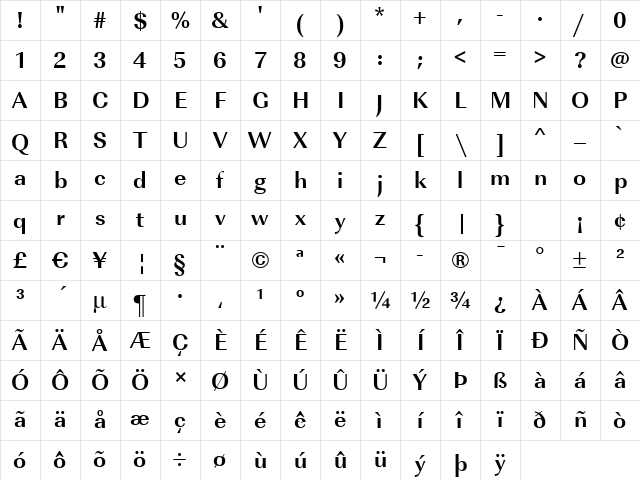
RicoBecker is a composed and adaptable typeface that performs quietly and consistently across a wide range of design contexts. Its bold stroke weight gives it real presence on the page.